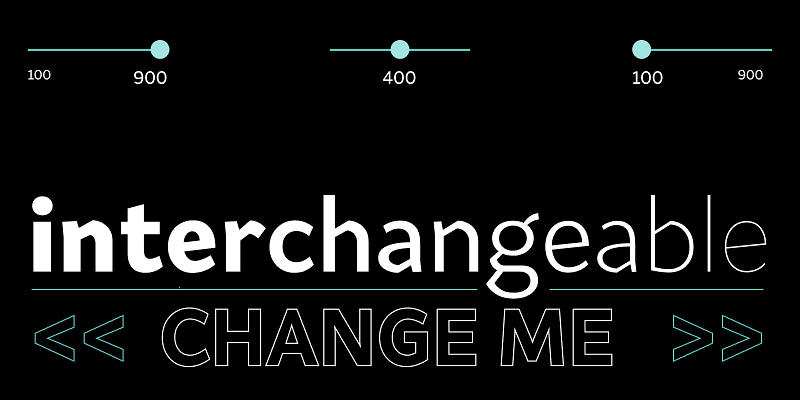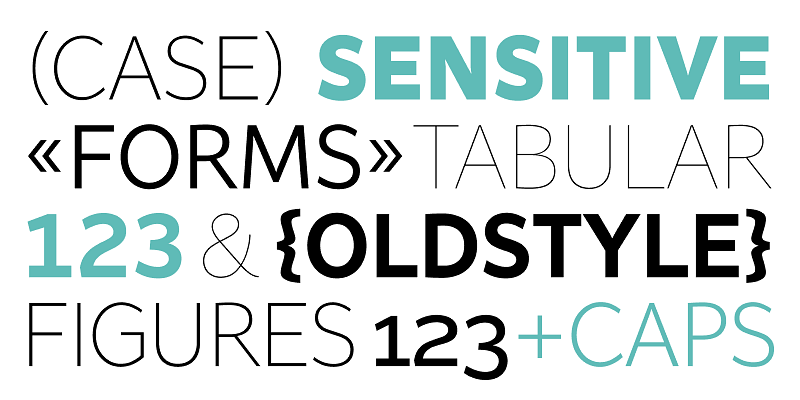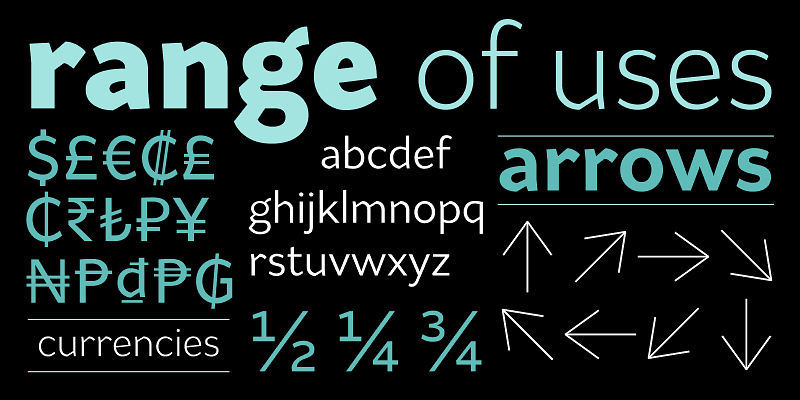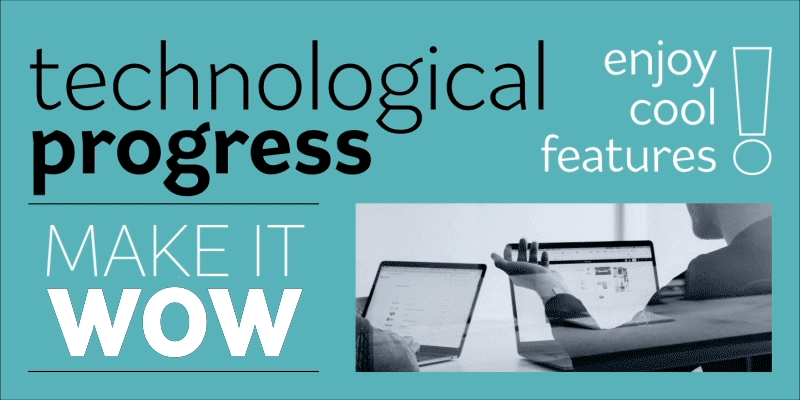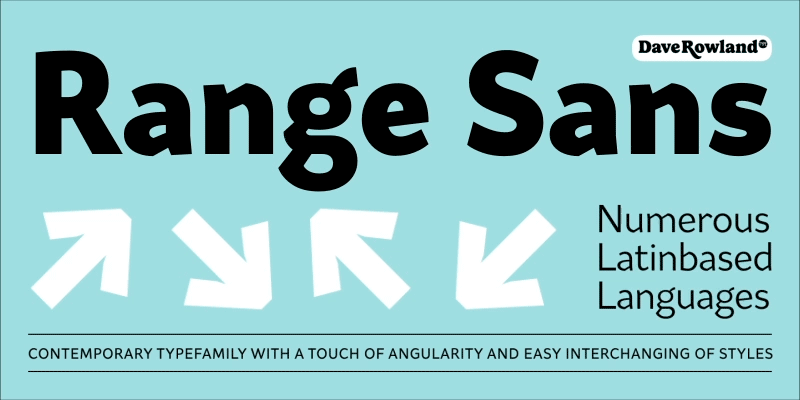
Range Sans Variable is a contemporary grotesque family. Created for those detailed project briefs such as corporate identities, information design, and logos, where one wants something slightly idiosyncratic and intriguing. However, the openness and spacing work well in running text, too. Because it mirrors design details similar to those in Range Serif, both families make for a natural font pairing, thus expanding the typographic range available for conquering whatever your client needs.